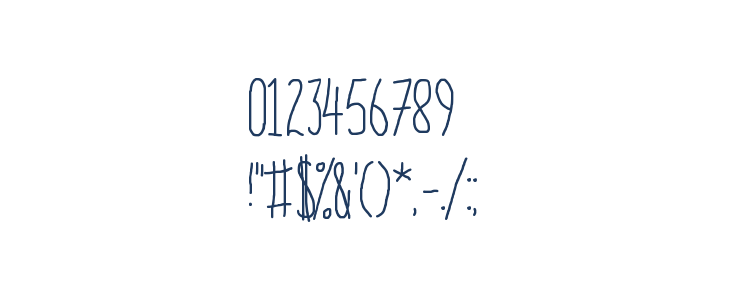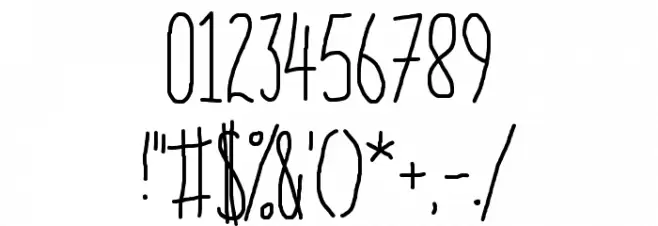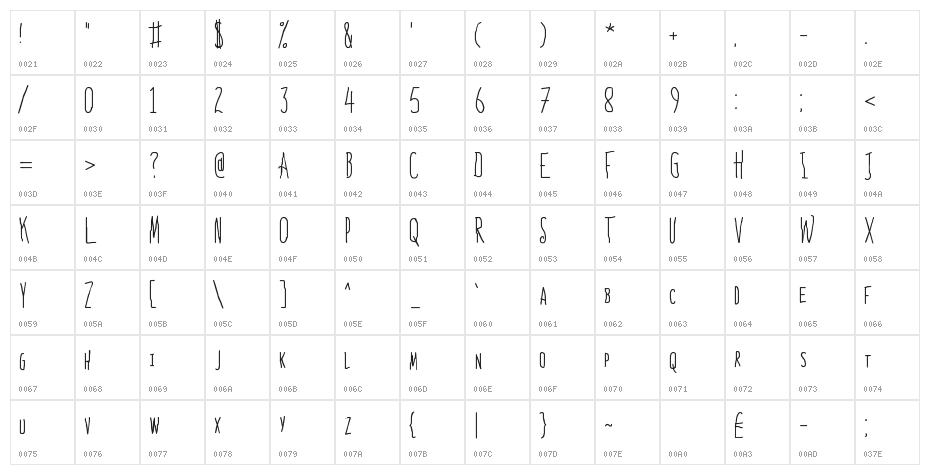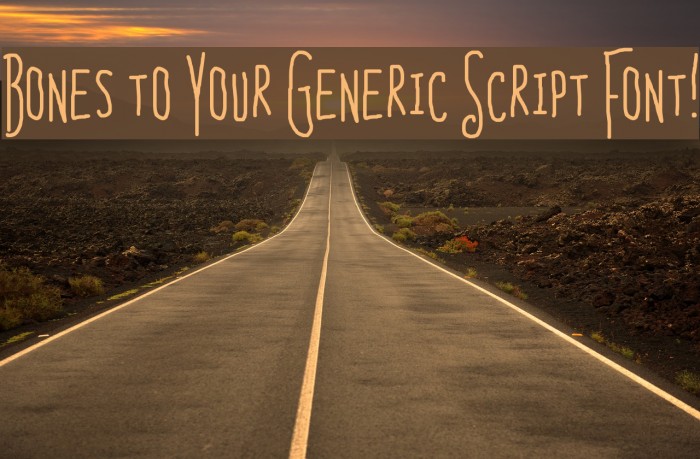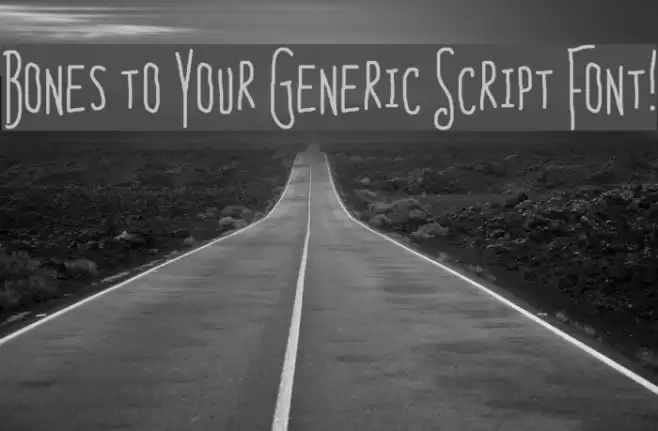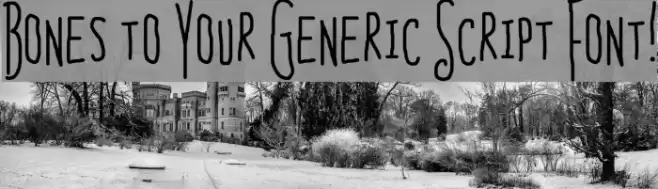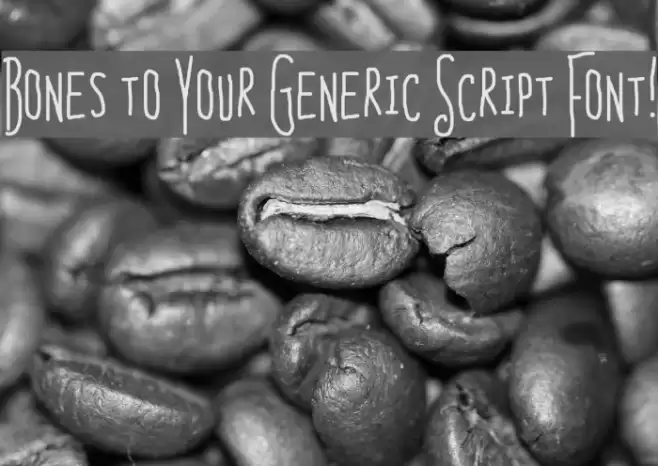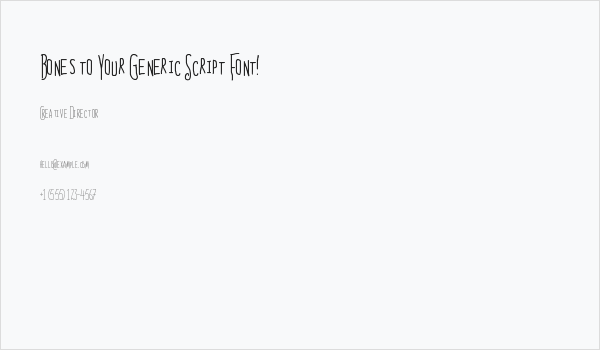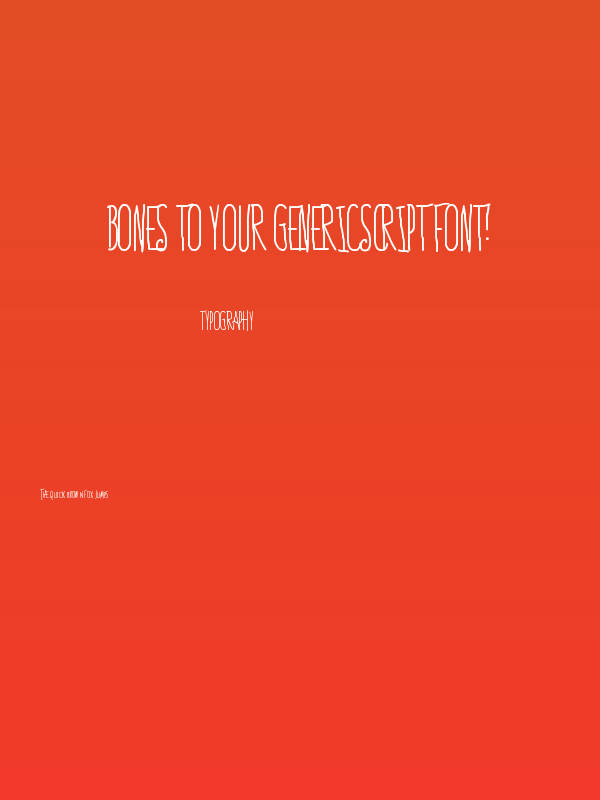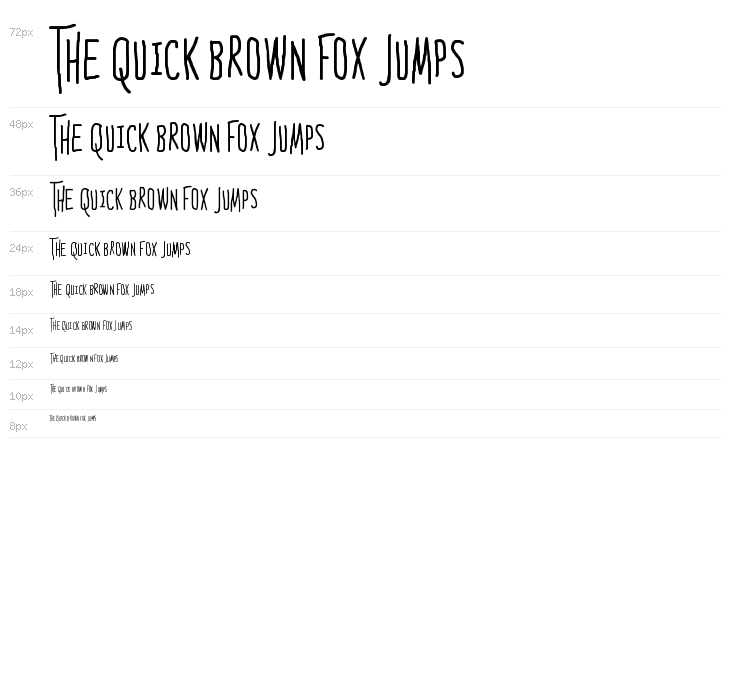
This font features a playful and quirky handwritten style, characterized by its uneven strokes and slightly irregular letterforms. The uppercase and lowercase letters maintain a consistent height, giving it a uniform appearance despite its whimsical nature. The numerals and special characters follow the same playful design, making it suitable for creative and informal projects. The strokes are thin, with a slight wobble that adds to the font's charm. This font is ideal for projects that require a personal touch or a casual, friendly vibe.
| Proposed Projects | Ideal for greeting cards, children's books, casual invitations, and playful branding. |